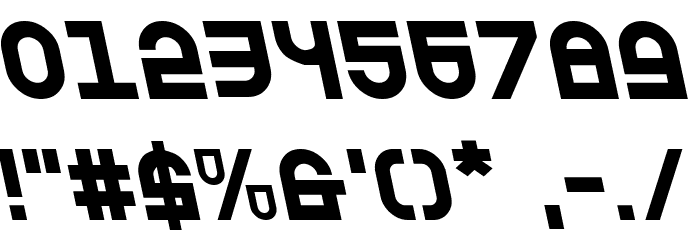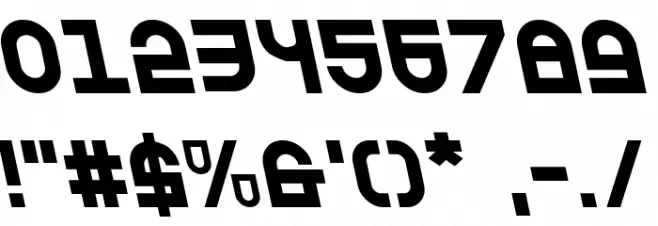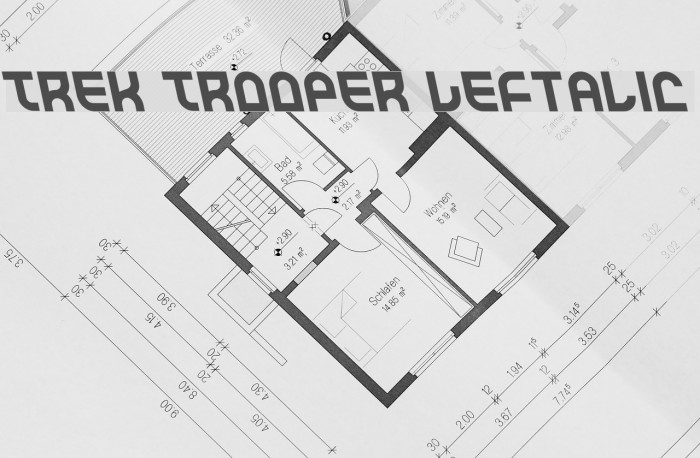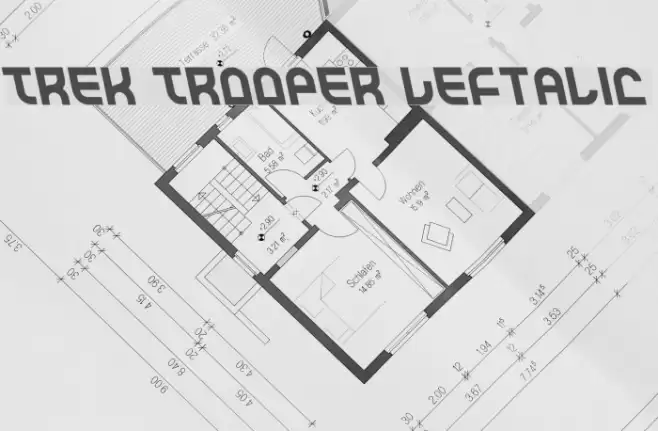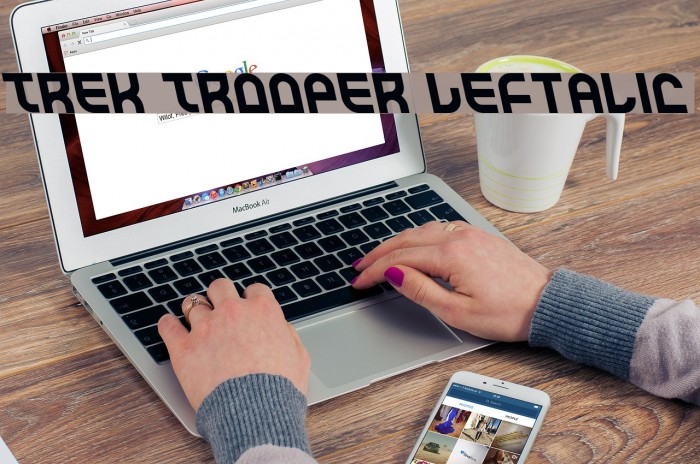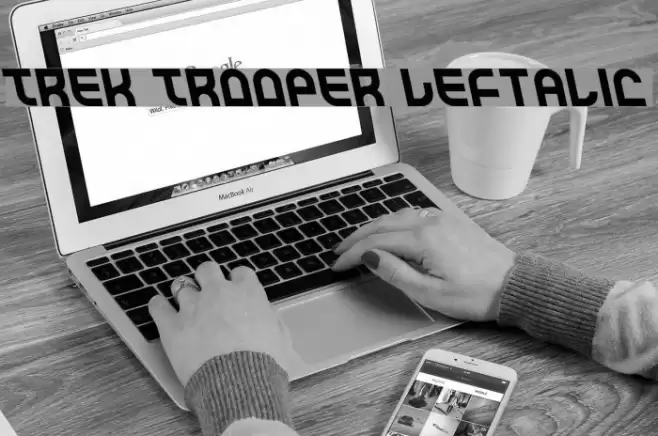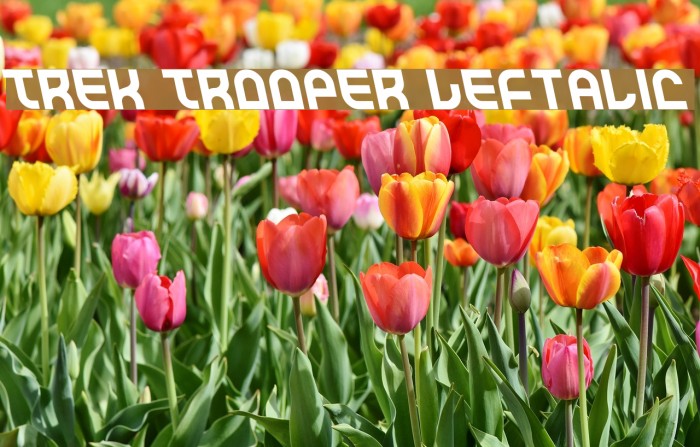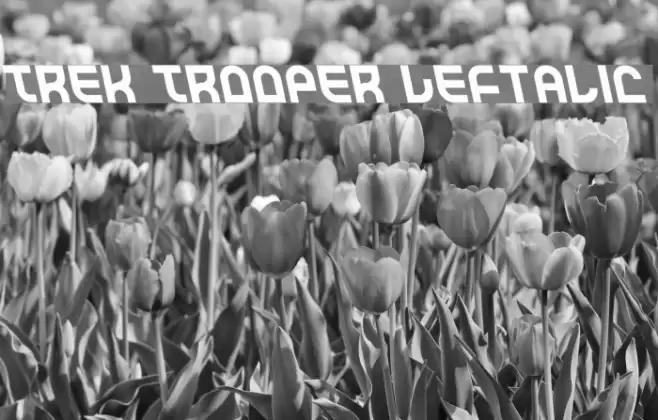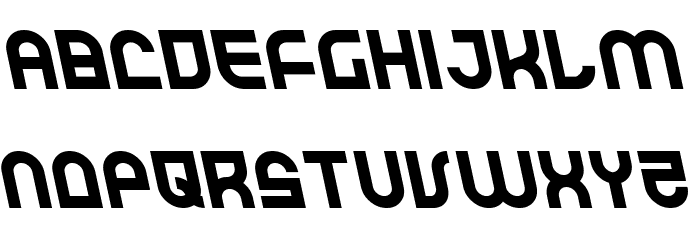
Trek Trooper Leftalic Font
Trek Trooper Leftalic Description
This font features a bold and futuristic design with a distinct geometric style. The characters are crafted with sharp angles and a consistent stroke width, giving it a strong and assertive appearance. The uppercase and lowercase letters maintain a uniformity that enhances readability while still offering a unique aesthetic. The numbers and special characters follow the same design principles, ensuring a cohesive look across all elements. This font's modern and dynamic style makes it ideal for projects that require a bold statement.
| Proposed Projects | Ideal for sci-fi themed projects, technology branding, video game titles, and modern poster designs. |